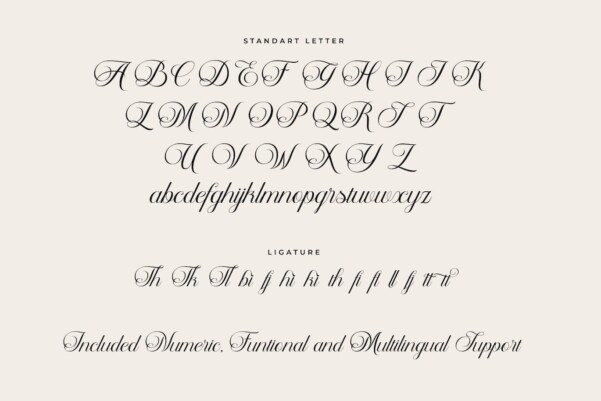
Delphia Village Font
Delphia Village Font, Inspired by elegant brand and calligraphy concept, delicate curves and refined details create a sense of sophistication and femininity. Delphiavillage brings a touch of charm and sophistication to branding, editorial designs, and more. We keep this font looks fashionable, elegant, luxury, premium, modern, catchy and easy to use with its versatility and contemporary appeal. Delphia village comes with ligature, beautiful alternate and already support multilingual character.
Delphia village is a beautiful choice for any creative endeavor, chic, lifestyle design such as logos, title, watermark on photography, cover, branding, display and magazine, wedding event, corporate brand, quotes, album cover, business card, business project and many other design projects.